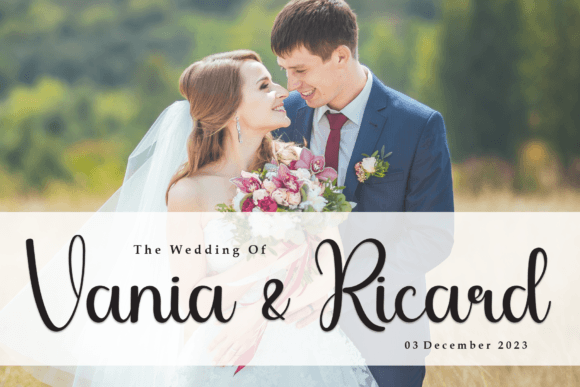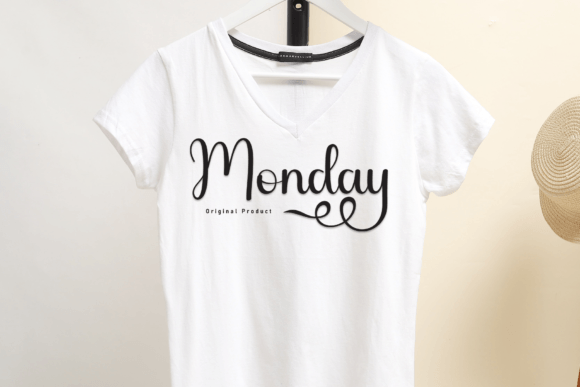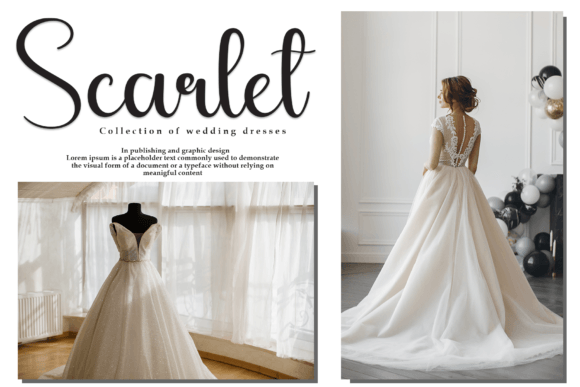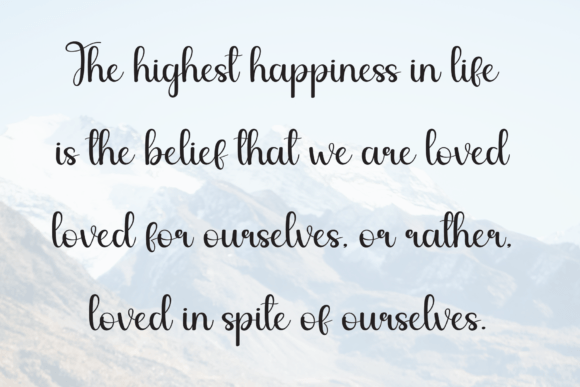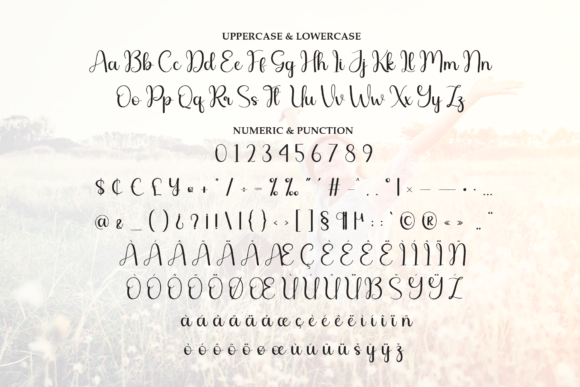
Introducing Delight Font: The Sweet and Friendly Handwritten Font for Your Design Needs
Are you looking for a font that can add a touch of sweetness and friendliness to your designs? Look no further than Delight Font! This beautiful handwritten font is perfect for creating wedding invitations, cards, and other designs that require a lovely and personal touch. In this article, we’ll take a closer look at Delight Font, its features, and how you can use it to elevate your designs.
What is Delight Font?
Delight Font is a sweet and friendly handwritten font that is designed to bring a touch of warmth and personality to your designs. Its cute yet versatile style makes it ideal for a wide range of projects, from wedding invitations and cards to posters, flyers, and more. Whether you’re a designer, crafter, or DIY enthusiast, Delight Font is a great addition to your font collection.
Features of Delight Font
So, what makes Delight Font so special? Here are some of its key features:
- Handwritten style: Delight Font has a beautiful handwritten style that gives it a personal and unique touch.
- Cute and versatile: This font is not only cute but also versatile, making it suitable for a wide range of projects.
- Elegant and sophisticated: Despite its playful style, Delight Font has an elegant and sophisticated feel that makes it perfect for formal events like weddings.
- Easy to read: The font is clear and easy to read, making it perfect for body text and headings.
Uses of Delight Font
Delight Font is a versatile font that can be used for a wide range of projects, including:
- Wedding invitations: Delight Font is perfect for creating beautiful and elegant wedding invitations that set the tone for the big day.
- Cards and stationery: This font is great for creating personalized cards and stationery for special occasions like birthdays, anniversaries, and holidays.
- Posters and flyers: Delight Font can add a touch of personality to your posters and flyers, making them stand out from the crowd.
- Digital designs: This font is also great for digital designs like social media graphics, blog posts, and email newsletters.
Tips for Using Delight Font
Here are some tips for using Delight Font in your designs:
- Pair it with other fonts: Delight Font looks great when paired with other fonts, especially sans-serif fonts like Arial or Helvetica.
- Use it for headings and titles: Delight Font is perfect for headings and titles, but you can also use it for body text for a more playful look.
- Experiment with colors: Delight Font looks great in a variety of colors, so don’t be afraid to experiment and find the perfect color for your design.
In conclusion, Delight Font is a beautiful and versatile handwritten font that can add a touch of sweetness and friendliness to your designs. Its cute yet elegant style makes it perfect for a wide range of projects, from wedding invitations and cards to posters and digital designs. With its ease of use and flexibility, Delight Font is a great addition to any designer’s or crafter’s font collection.